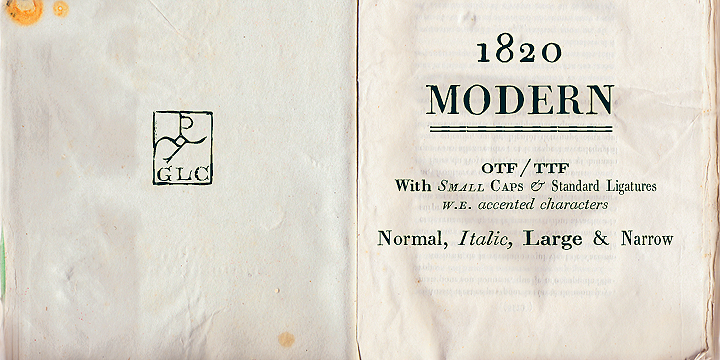
1820 Modern Font is a sophisticated and elegant typeface that masterfully blends the refined aesthetics of classic serifs with a distinctly contemporary sensibility. Imagine this font gracing the masthead of a high-fashion magazine, instantly conveying luxury and timeless style. It's also an excellent choice for branding upscale boutiques, creating a sense of exclusivity and heritage in logos and packaging. Furthermore, 1820 Modern Font can bring a distinguished and highly readable aesthetic to fine dining menus, art exhibition catalogs, and editorial layouts where clarity, grace, and a touch of understated grandeur are paramount. Its balanced proportions and sharp details make it ideal for projects that demand both formality and modern appeal.
What makes 1820 Modern Font truly exciting is its ability to bridge historical elegance with a fresh, crisp clarity. It often features high contrast between thick and thin strokes, sharp serifs, and a dignified presence that makes every character stand out. This isn't just a stylish choice; it creates a sense of sophistication and authority, instantly elevating the perceived value of your design. It manages to feel both classic and strikingly current, lending itself well to projects that aim for a timeless yet relevant look. For designers seeking a font that combines grace, precision, and an air of refined modernity, 1820 Modern Font offers a genuinely captivating solution.
1820 Modern Font Family
1820 Modern Font typically comes with a comprehensive family designed to offer maximum versatility across various design applications. You will often find it available in a range of weights, such as Light, Regular, Medium, Bold, and sometimes even Black or Heavy, allowing for diverse typographic hierarchies. Many high-contrast serif families like 1820 Modern also include exquisite Italic styles that perfectly complement the upright versions, adding an extra layer of elegance and emphasis. Furthermore, you might find specific stylistic sets, ligatures, and alternate characters that further enrich its professional and aesthetic appeal, providing designers with rich tools for detailed and nuanced typography.